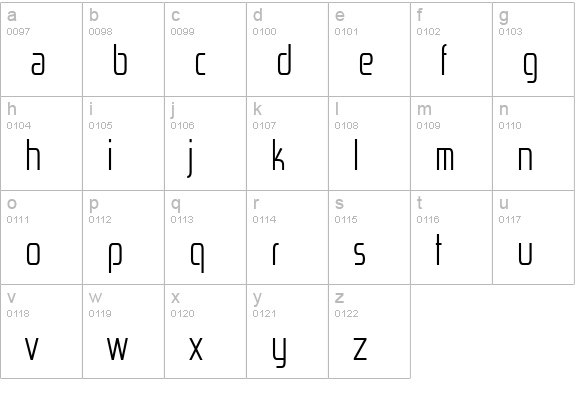
Zekton CdLt Font Details
Zekton CdLt font is a stunning display typeface that exudes a sense of modernity and sleekness. With its clean lines and geometric shapes, this font is perfect for making a bold statement in any design project. The tall and narrow letterforms give Zekton CdLt a distinctive look that sets it apart from other fonts. What makes Zekton CdLt even more appealing is that it is completely free to download. You can easily access this versatile font at FontsMarket.com without any cost. Whether you're working on a branding project, poster design, or website layout, Zekton CdLt is sure to make a strong visual impact. Get your hands on this exceptional font today and elevate your designs with its unique style and flair.